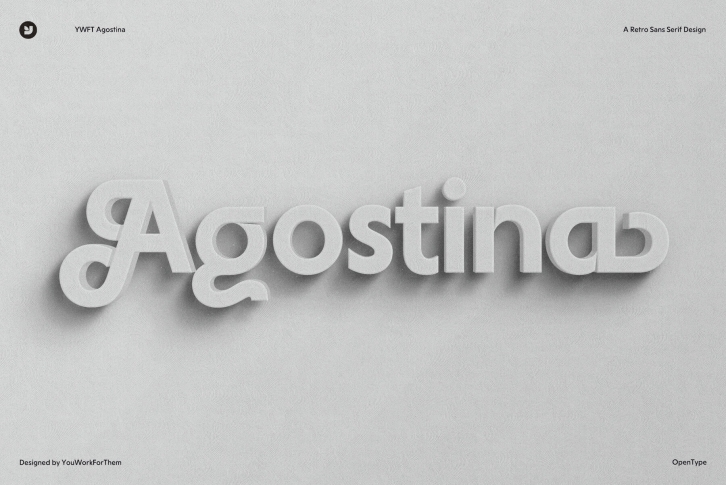
Immerse in The World of Typography with YWFT Agostina
With an astonishing suite of nearly 300 characters, YWFT Agostina arrives as a Modern Sans Serif gem from YouWorkForThem's design bureau, directed towards graphic designers and marketing firms. YWFT Agostina perfectly balances workhorse functionality with an allure of exclusivity, offering a comprehensive typography solution you simply must have in your design utility belt.
Standing out in the plethora of sans-serif typefaces, YWFT Agostina extends a breathtakingly elegant assortment of both beginning caps and ending lowercase swash letters that guide the audiences’ eye in a harmonious dance through your content. Easily accessible via Opentype, this typeface caters to those who value simplicity of use just as much as aesthetics.
- Modern Sans Serif design for an on-trend aesthetic appeal
- Almost 300 characters to accommodate diverse design needs
- Beginning caps & ending lowercase swash letters for standout typography
- User-friendly, easily accessible design features like swashes and alternates via Opentype
- Ideal for graphic design and marketing firms targeting high-end aesthetics